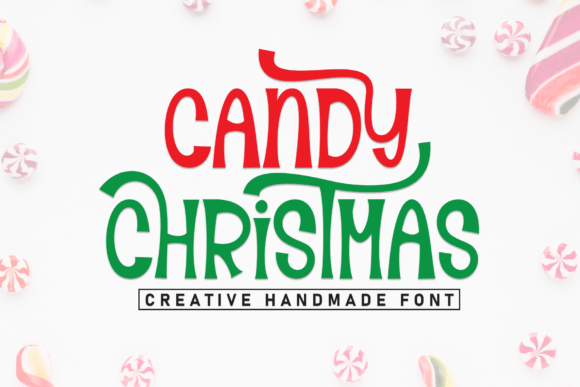
The Sweetest Holiday Font: A Deep Dive into Candy Christmas
Ah, the holiday season – a time for joy, giving, and creating unforgettable designs. I still remember the year I was tasked with designing a festive holiday poster for a client’s Christmas party invitation. As I scrolled through font after font, nothing seemed quite right. That was until I stumbled upon Candy Christmas, a font that embodies the whimsical, playful spirit of the holiday season. In this article, we’ll explore what makes Candy Christmas so special, its uses, and how to make the most of this delightful font.
A First Impression: What Makes Candy Christmas So Special?
Candy Christmas is an imaginative, creative, handmade font that captures the chunky, delicious fun of holiday sweets and playful typography. Its bold, dramatically curved baseline shifts and exaggerated letter widths create a truly dynamic and unforgettable headline style. The thick, slightly uneven strokes enhance its charming, artisan-crafted appeal, making it perfect for seasonal posters, holiday branding, children’s party invitations, sweet packaging, and quirky greeting cards.
My Honest Review: The Good and the Not-So-Good
Here’s what I love about Candy Christmas:
• ✨ Unique and eye-catching design: The font’s bold and playful aesthetic ensures high engagement and a powerful festive feel.
• 🎉 Versatile: Perfect for a wide range of projects, from holiday posters to sweet packaging.
And here are a few quirks to consider:
• 🤔 May not be suitable for body text: Due to its bold and playful nature, Candy Christmas may not be the best choice for longer texts.
• ⚠️ Limited use outside of holiday season: While the font can be used for other projects, its festive design may not be suitable for non-holiday related content.
The Story Behind Candy Christmas
Candy Christmas was designed with the holiday season in mind. The font’s creator wanted to capture the magic and whimsy of holiday sweets and decorations. Inspired by vintage holiday posters and festive packaging, Candy Christmas was born – a font that’s equal parts playful, charming, and festive.
What is Candy Christmas? Candy Christmas is a handmade, display font designed for holiday projects and festive designs.
Is Candy Christmas suitable for body text? No, Candy Christmas is a display font and may not be suitable for longer texts or body copy.